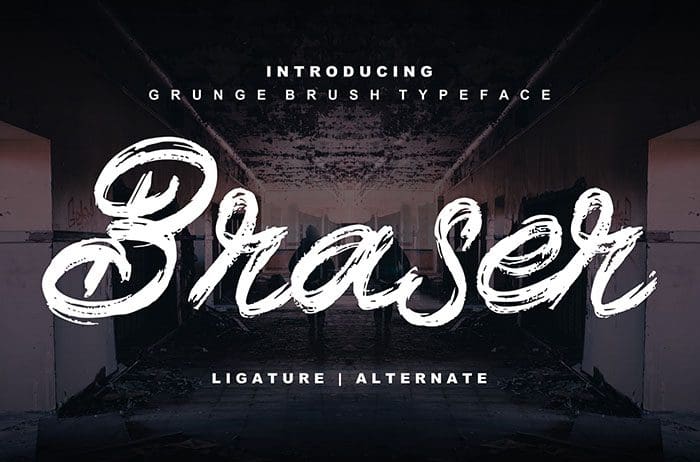
Braser Grunge Brush Font
Braser is a grunge and fizzled out brush font. It’s great for logos, branding, print projects, drawing, headline, and much more. Thanks to Vunira Studio for sharing this font! Take a look at this portfolio for more of his stunning fonts.